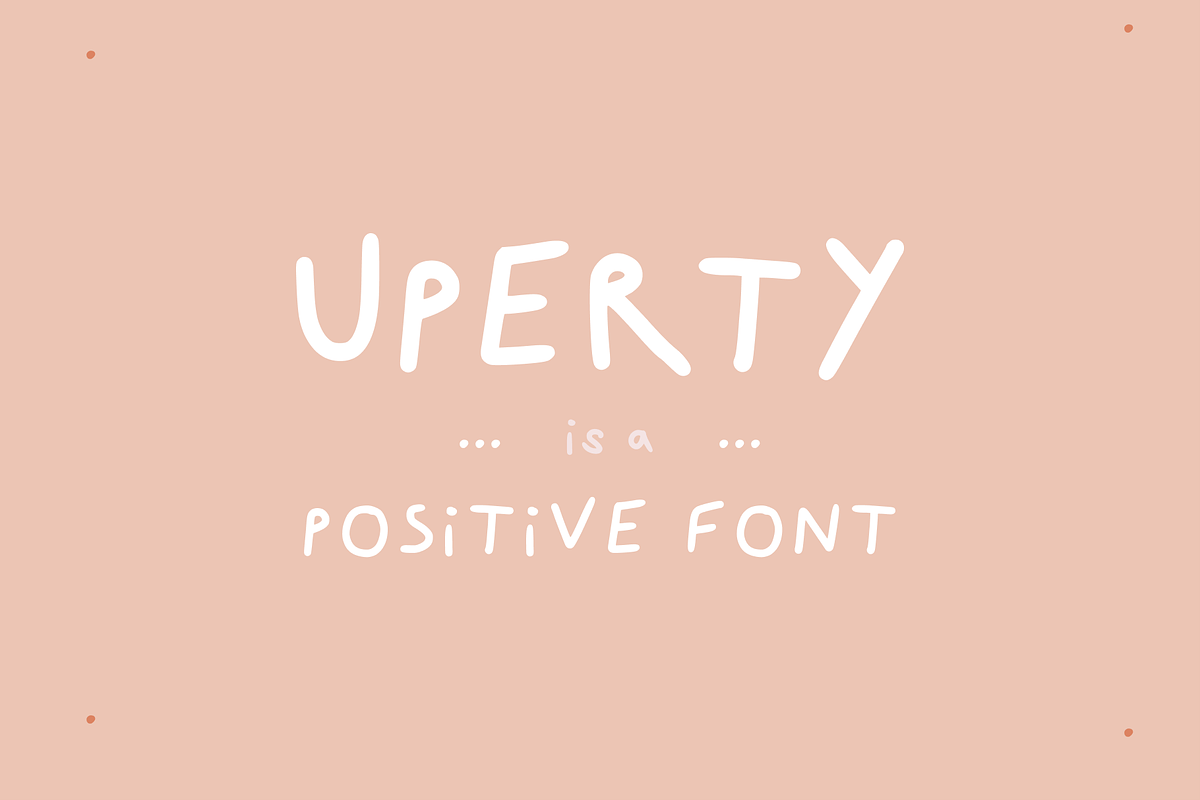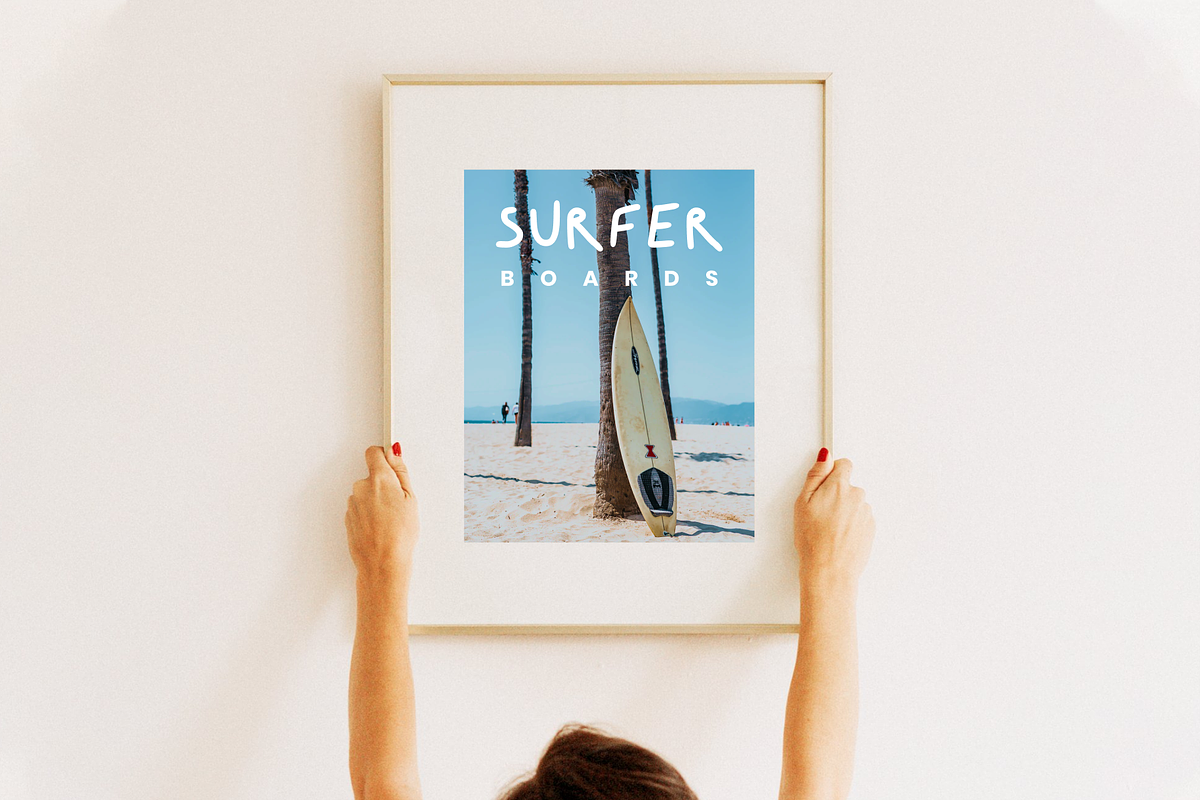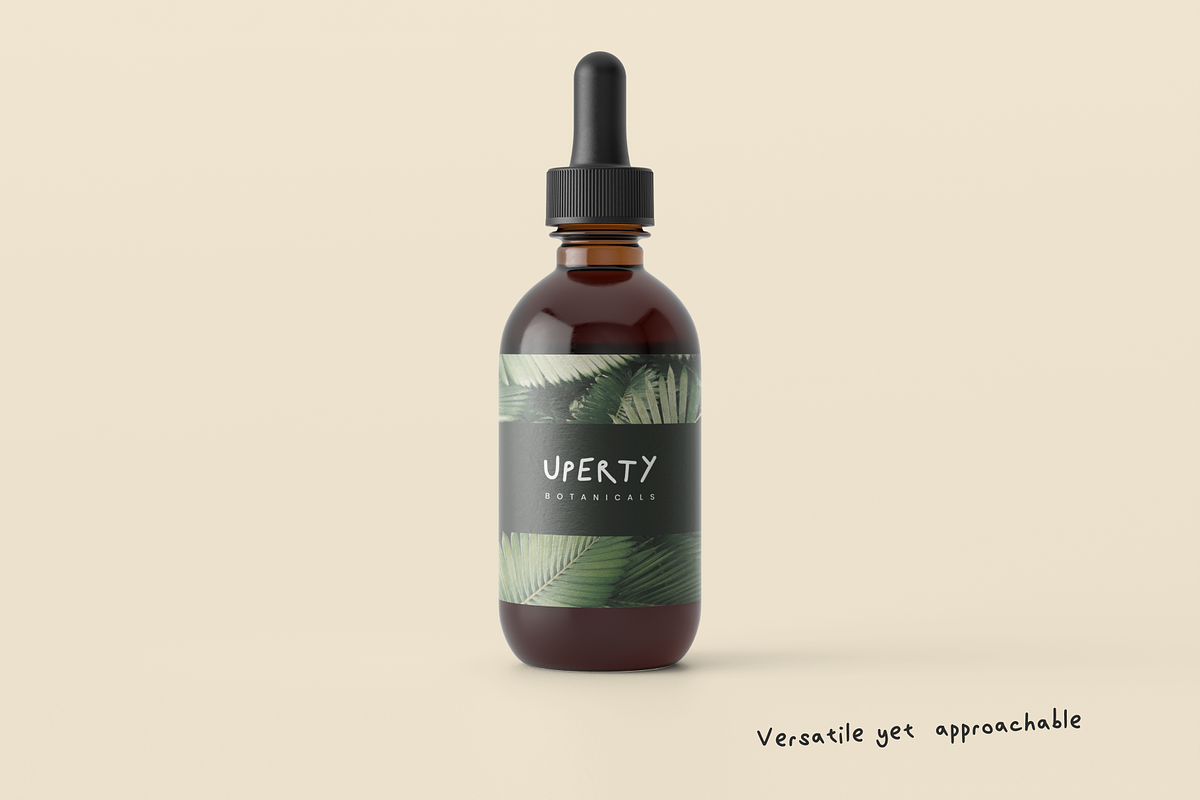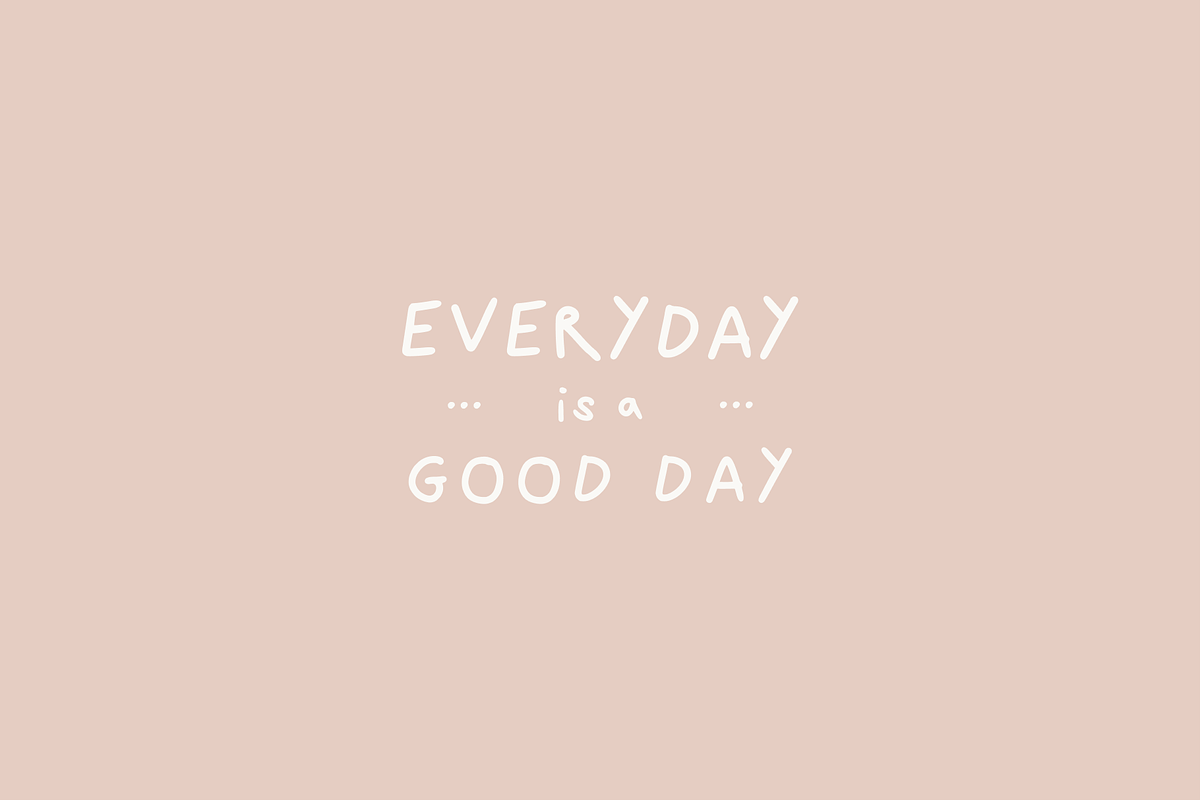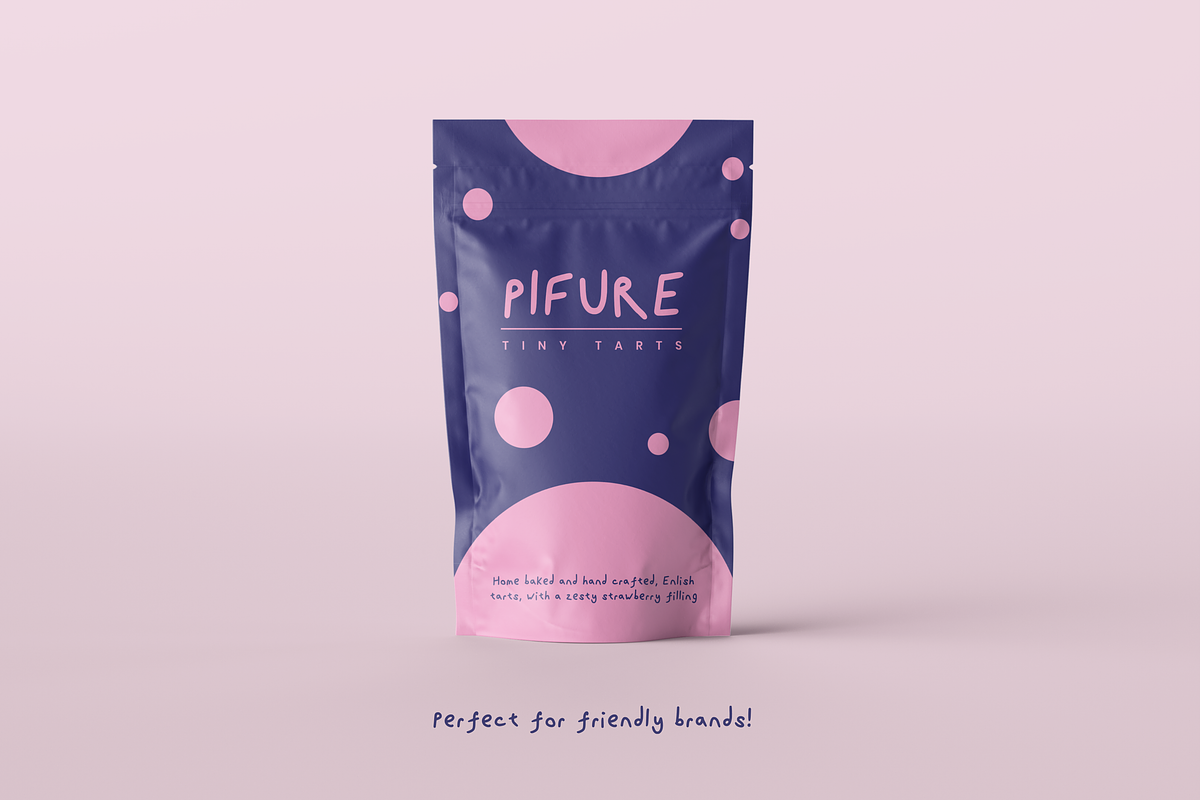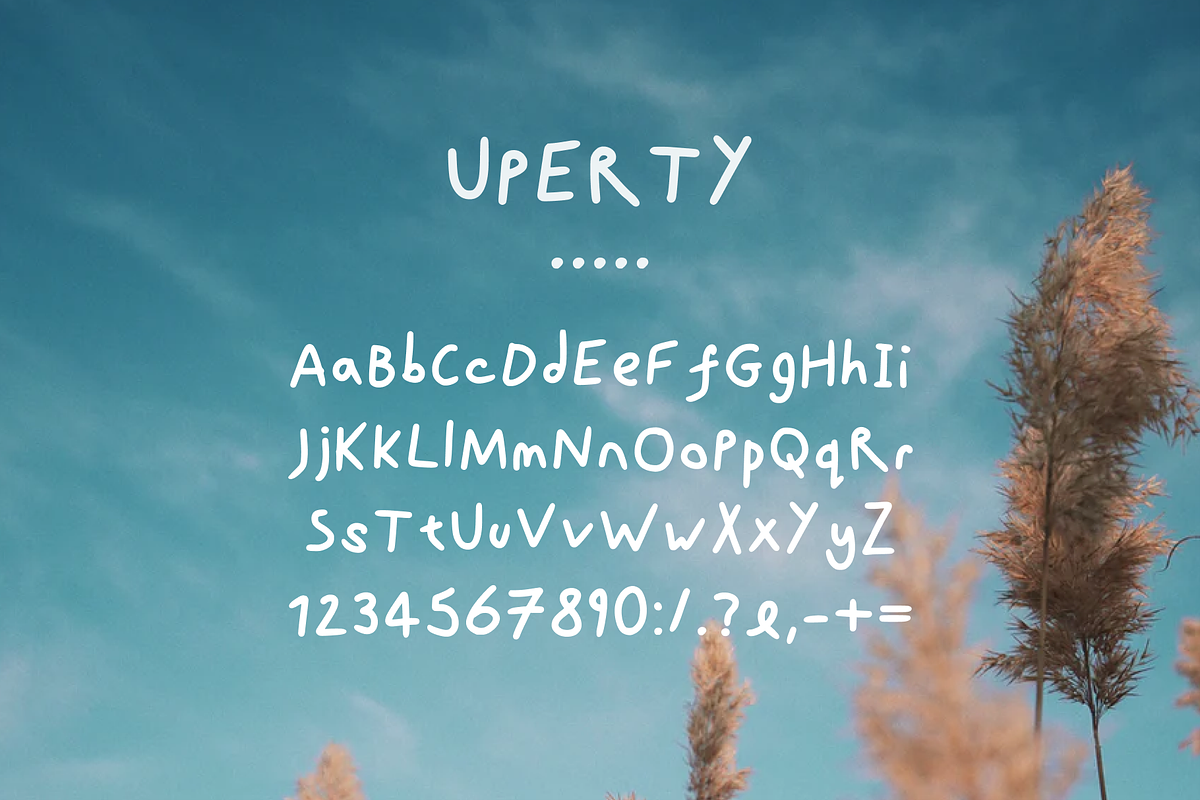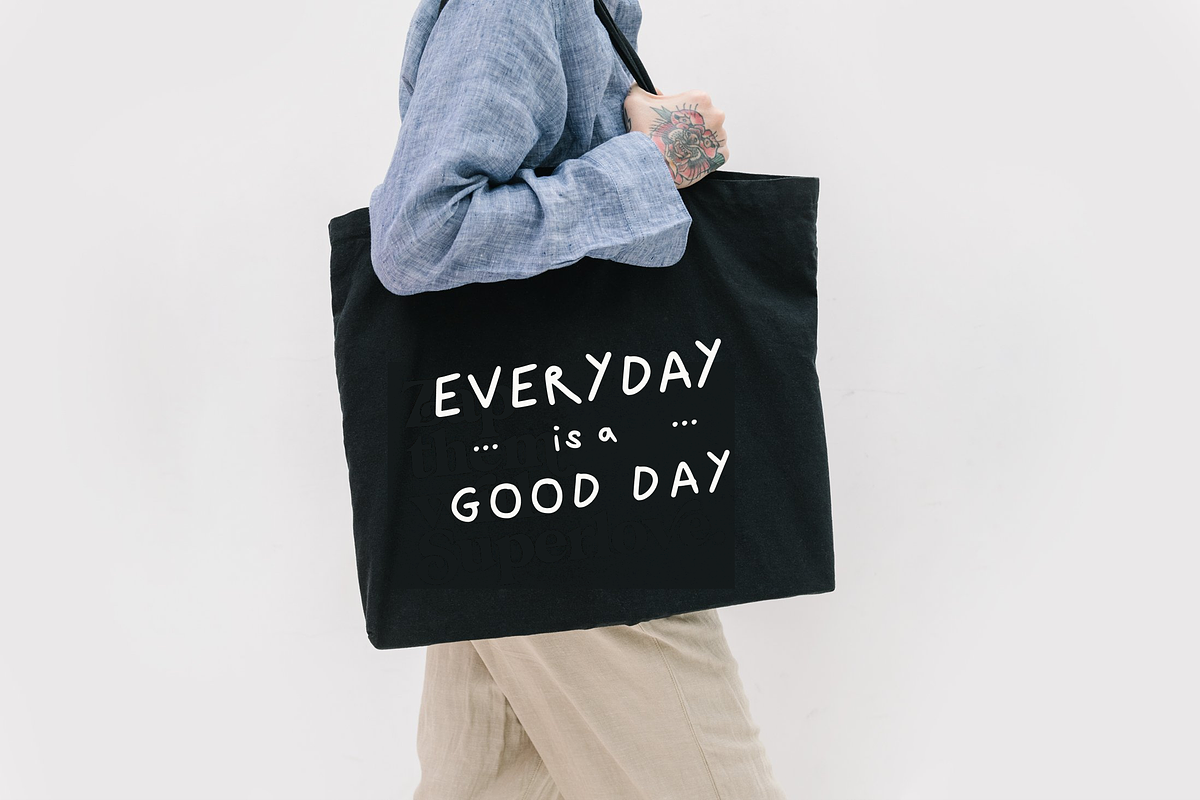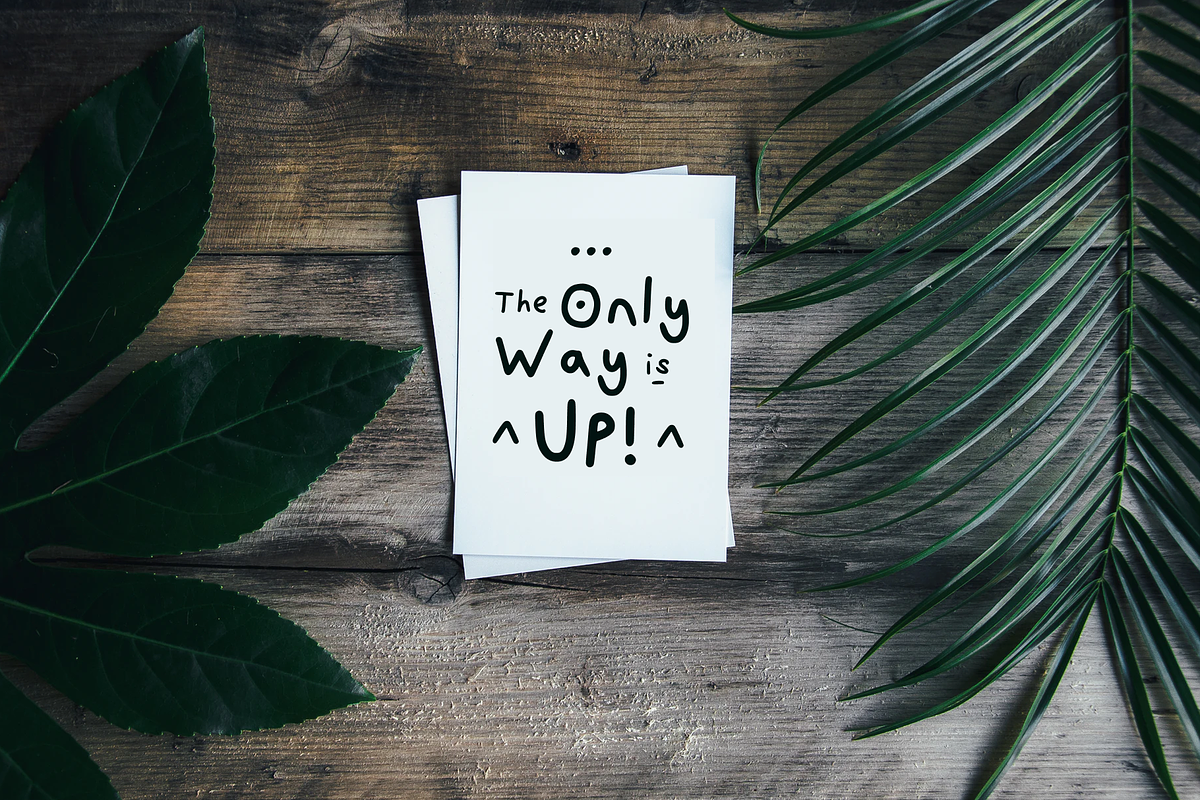
Uperty: Simple Boho Handwritten Font
Uperty is a handwritten font full of positivity and character. A friendly hand-lettered typeface with charm and style!
Uperty is a versatile font for various branding looks including.
Uperty: Simple Boho Handwritten Font by Delightful Design fits naturally into Branding, posters, packaging, typography.